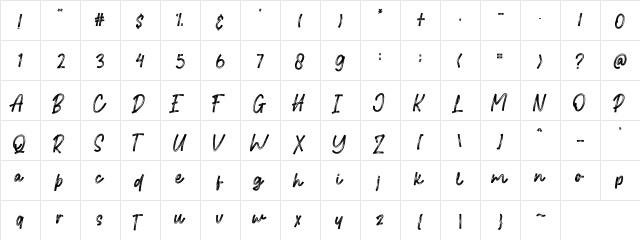
Brittanian ( Demo ) Brush
Foundry Crump Hand
DesignerStefie Justprince
Design Context for Brittanian ( Demo ) Typeface
Brittanian ( Demo ) brings a calligraphic fluidity to the page — its connecting strokes and expressive curves give it an unmistakably human quality.
Font Pairing: Combine Brittanian ( Demo ) with a simple geometric sans for maximum contrast — the tension between flowing curves and clean structure is a classic typographic pairing.
Pro Tip: Pair Brittanian ( Demo ) with a clean sans-serif for supporting text. The contrast between fluid script and geometric structure creates an elegant typographic hierarchy.